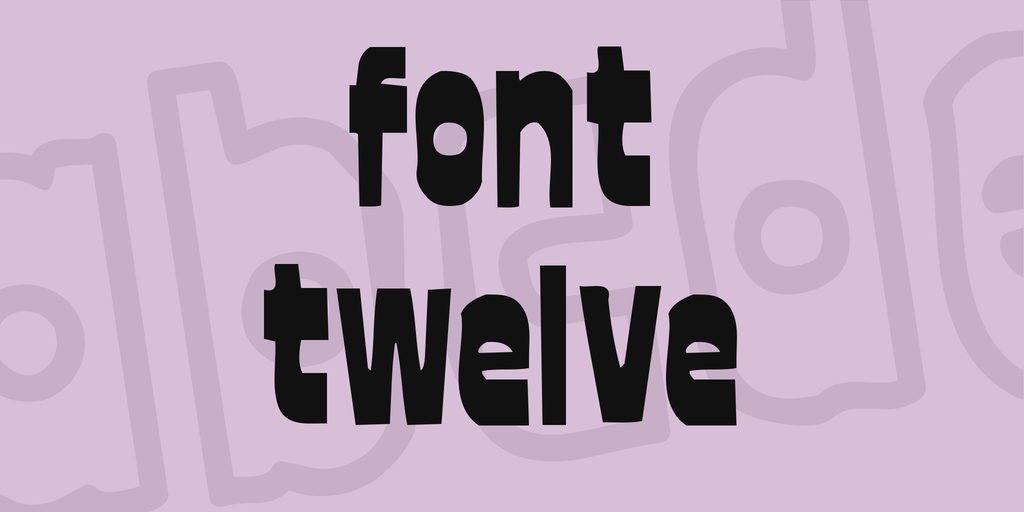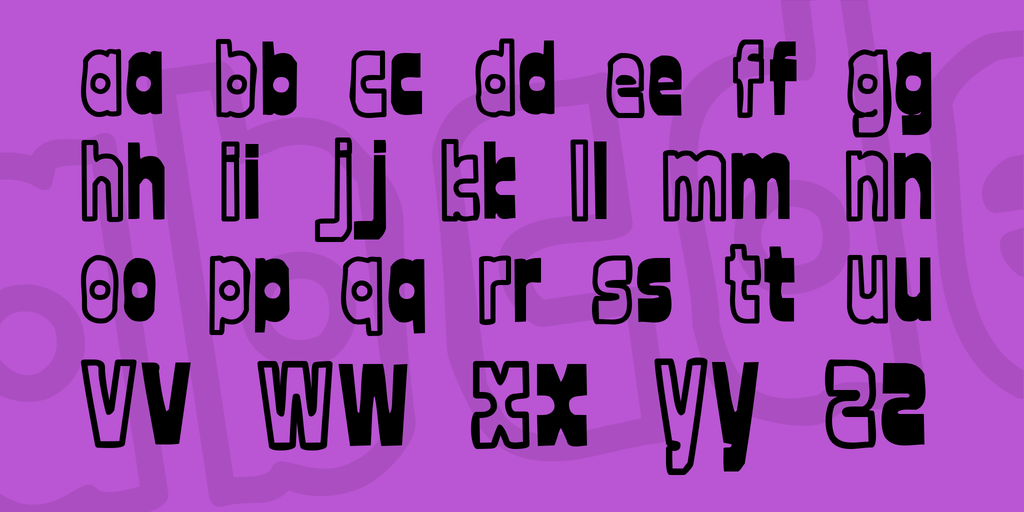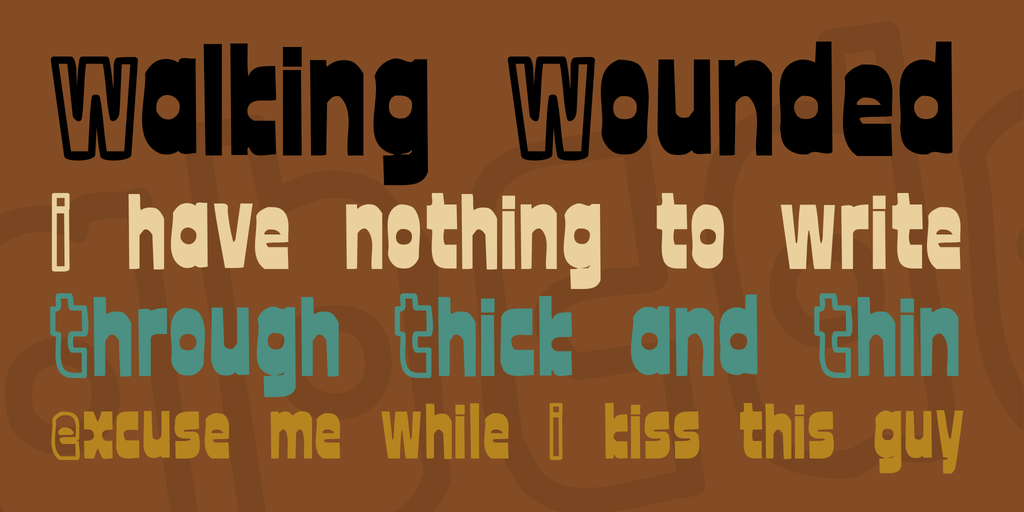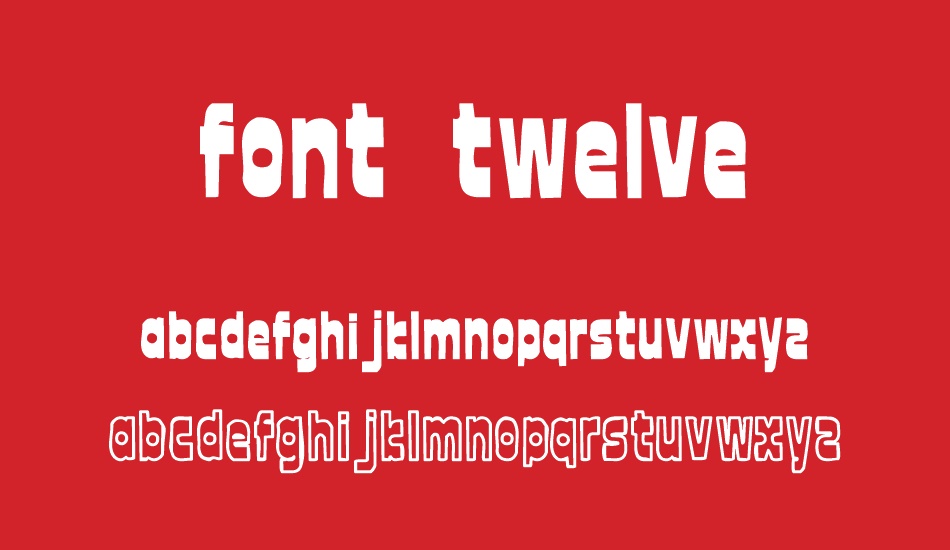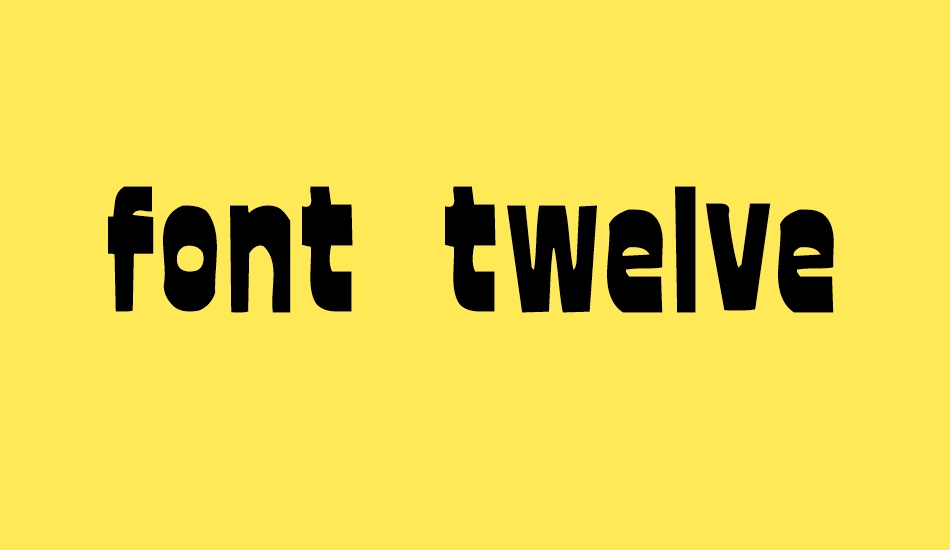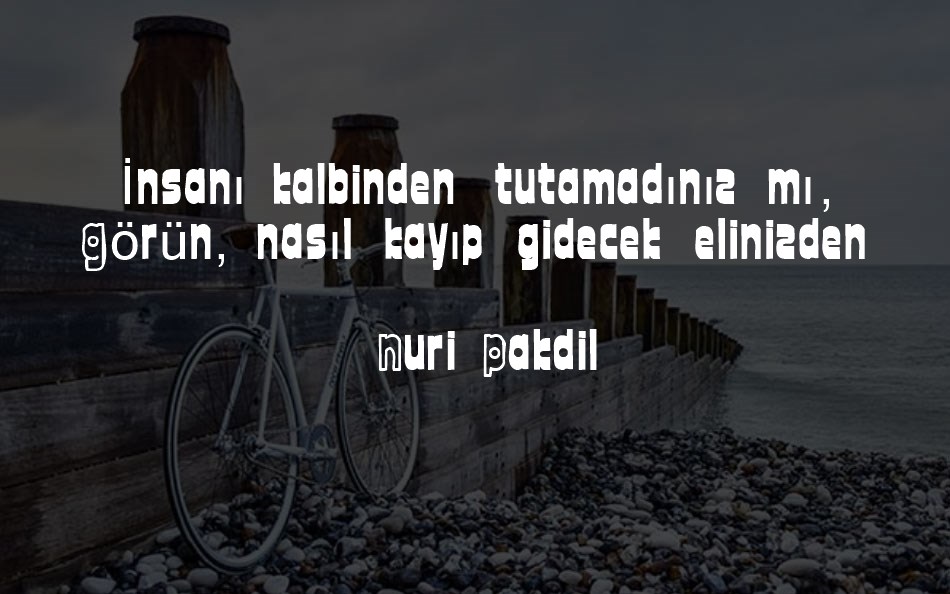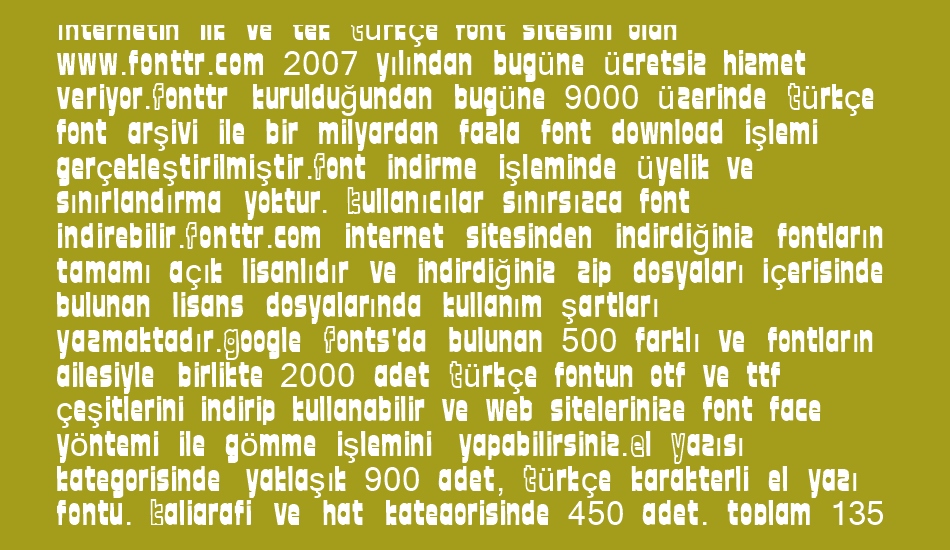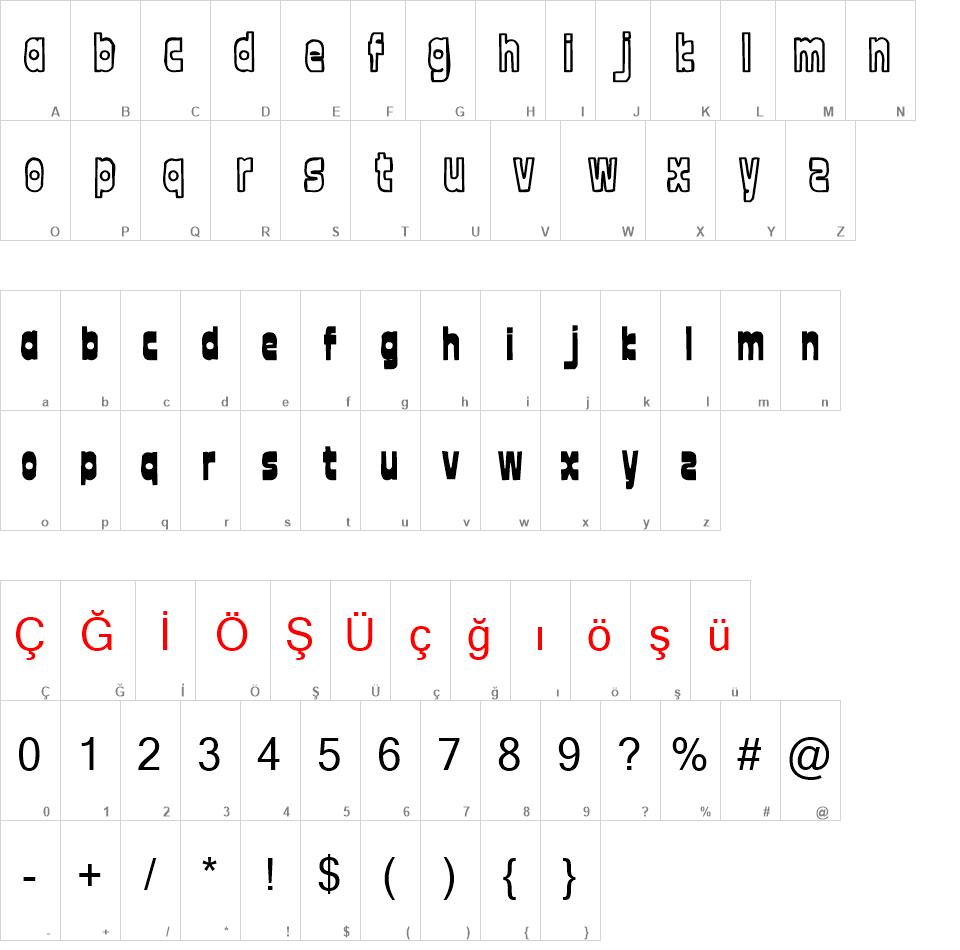
font twelve
This font is a spin-off of my second grade mathbook, Mathmatics for Mastery. I think its kind of futuristic for a 1982'ish kind of thing. But it does rock the house all nite long.